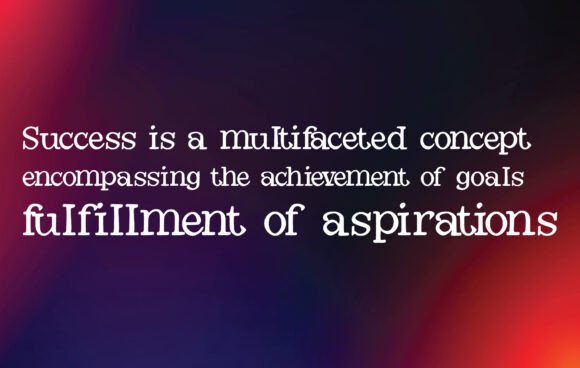
Oreo Font: The Ultimate Choice for Creative Designs
In the world of typography, fonts play a crucial role in making or breaking a design. A font can elevate your creative ideas, add aesthetic value to your work, and convey your message with clarity. One such font that has gained popularity among designers and artists is the Oreo Font. In this article, we’ll explore what makes Oreo Font special, its features, and why it’s the best choice for creating eye-catching logos, branding, and quotes.
What is Oreo Font?
Oreo Font is a lovely and beautiful handwritten font that has taken the design world by storm. Its unique and elegant style has made it a favorite among designers, artists, and crafty people. This font is designed to add a touch of sophistication and creativity to your designs, making it perfect for a wide range of applications.
Key Features of Oreo Font
- Handwritten Style: Oreo Font has a beautiful handwritten style that adds a personal touch to your designs.
- Elegant and Sophisticated: The font’s elegant and sophisticated design makes it perfect for high-end branding, logos, and quotes.
- Versatile: Oreo Font is versatile and can be used for a wide range of applications, from digital designs to print materials.
- Easy to Read: The font is easy to read, making it perfect for body text, headings, and titles.
Why Choose Oreo Font?
Oreo Font has several advantages that make it a top choice among designers. Here are some reasons why you should choose Oreo Font for your next project:
Advantages of Using Oreo Font
- Unique and Creative: Oreo Font is a unique and creative font that will set your designs apart from the rest.
- Time-Saving: With Oreo Font, you can create stunning designs in no time, saving you time and effort.
- Customizable: The font is highly customizable, allowing you to adjust the size, color, and style to suit your needs.
Use Cases for Oreo Font
Oreo Font is a versatile font that can be used for a wide range of applications. Here are some use cases where Oreo Font shines:
Perfect for Logos and Branding
Oreo Font is perfect for creating eye-catching logos, branding, and quotes. Its elegant and sophisticated design makes it ideal for:
- Logos: Create stunning logos that will make your brand stand out.
- Branding: Use Oreo Font to create a consistent brand image across all your marketing materials.
- Quotes: Add a touch of elegance to your quotes and sayings with Oreo Font.
Ideal for Digital Designs
Oreo Font is also perfect for digital designs, including:
- Social Media Graphics: Create stunning social media graphics that will grab attention.
- Web Design: Use Oreo Font to create beautiful and elegant web designs.
- Email Marketing: Add a touch of sophistication to your email marketing campaigns with Oreo Font.
Tips for Using Oreo Font
Here are some tips for using Oreo Font effectively:
Tips and Tricks
- Pair with Other Fonts: Pair Oreo Font with other fonts to create a unique and creative design.
- Adjust Font Size and Color: Adjust the font size and color to suit your design needs.
- Use for Headings and Titles: Use Oreo Font for headings and titles to add a touch of elegance.
In conclusion, Oreo Font is a beautiful and elegant handwritten font that is perfect for creating eye-catching logos, branding, and quotes. Its unique and creative design makes it a top choice among designers, and its versatility and customizability make it suitable for a wide range of applications. Whether you’re a designer, artist, or crafty person, Oreo Font is a must-have font that will take your creative ideas to the highest level.